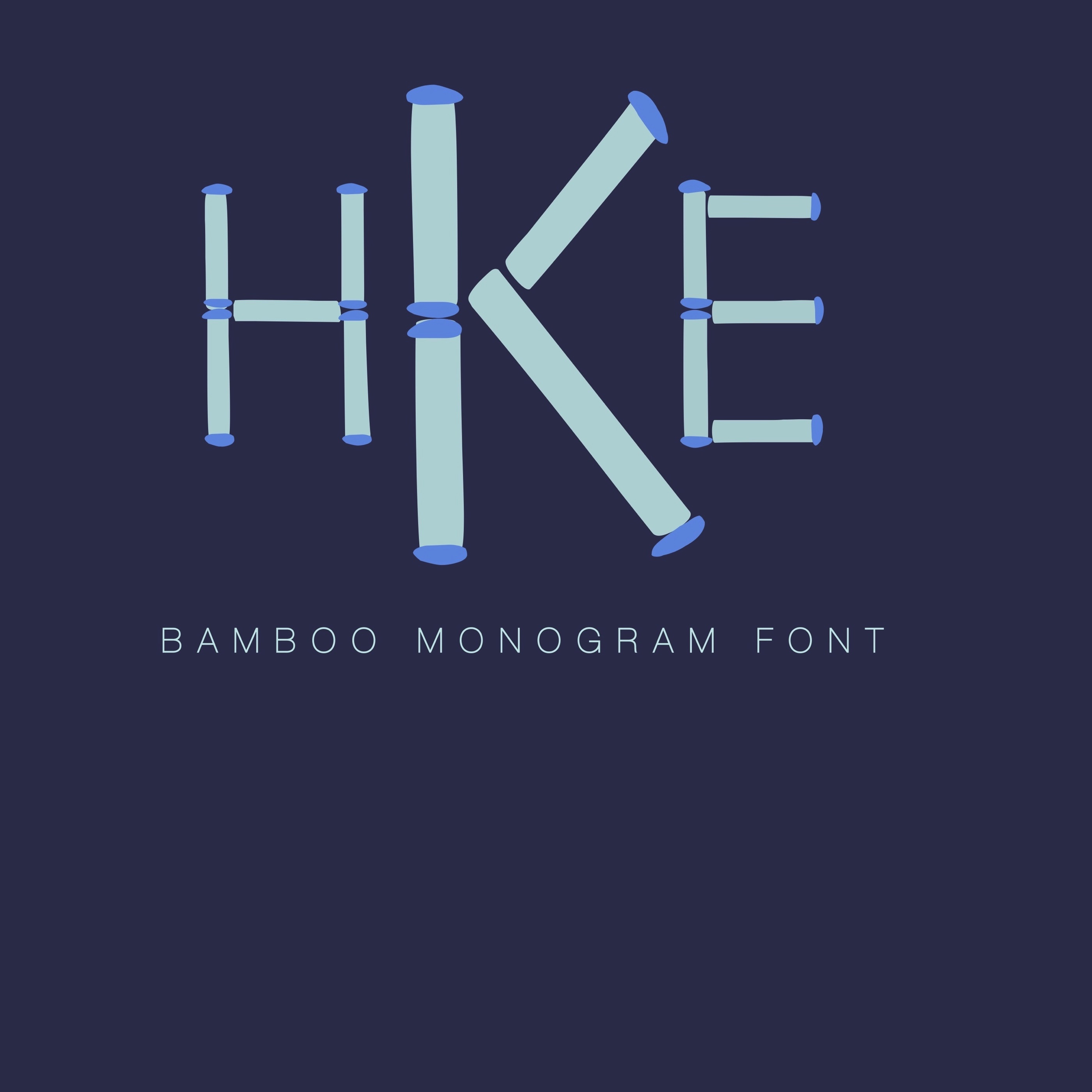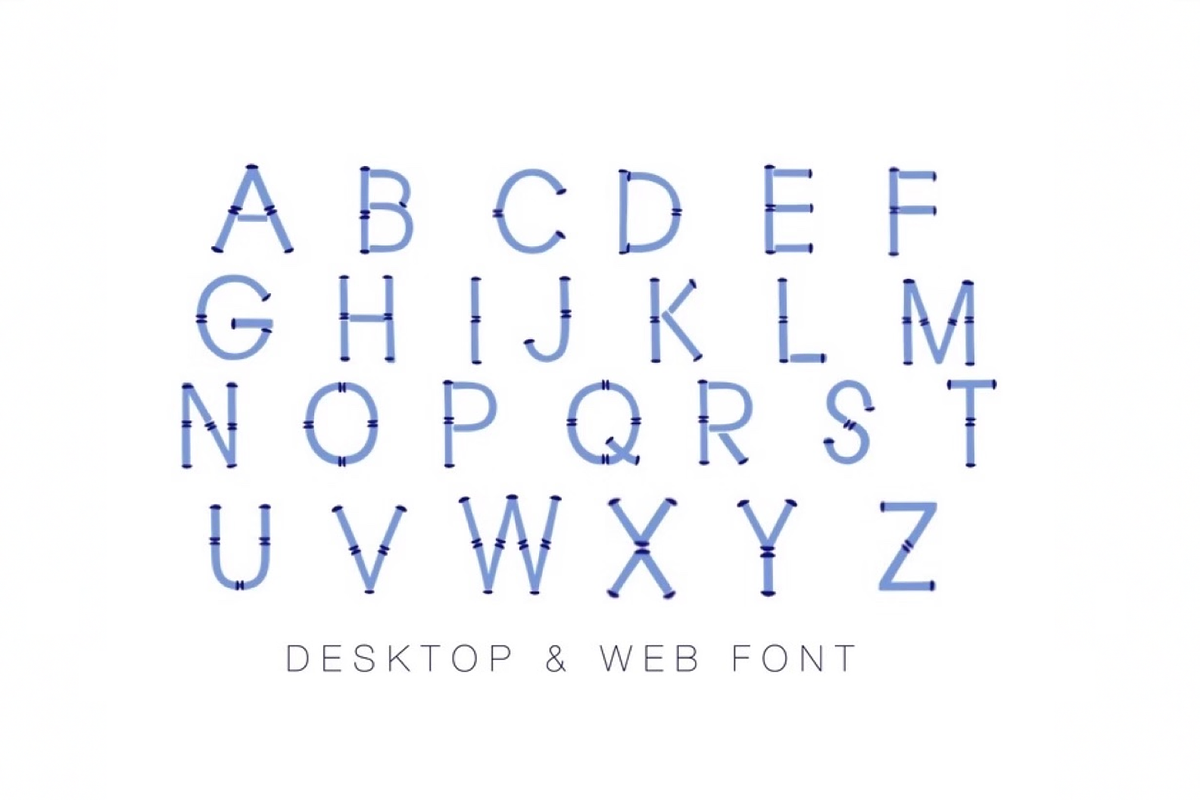
The Bamboo Monogram Typeface font includes 52 letters to create a monogram as shown in the first image. The uppercase letters are the solid background type and the lowercase letters are the contrasting ends. Each letter coordinates uppercase and lowercase.